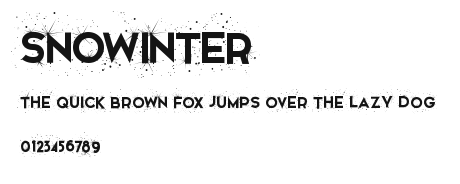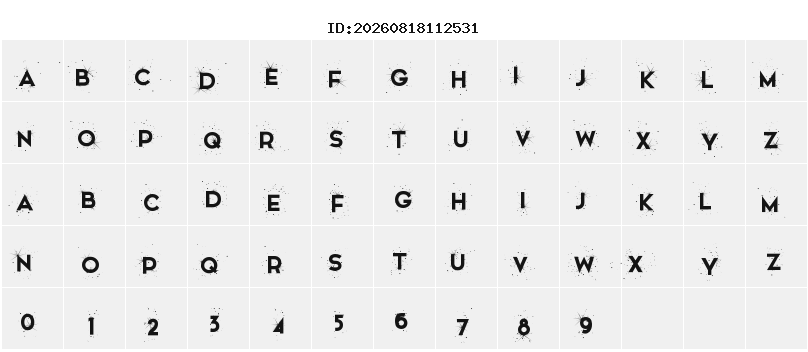
Snowinter Preview
• Font Name: Snowinter
• Designer: Dirt2.com
About Snowinter.otf
Snowinter.otf is a modern, elegant sans-serif font designed for ultimate readability and visual harmony. Perfect for branding, headlines, web design, and print materials.